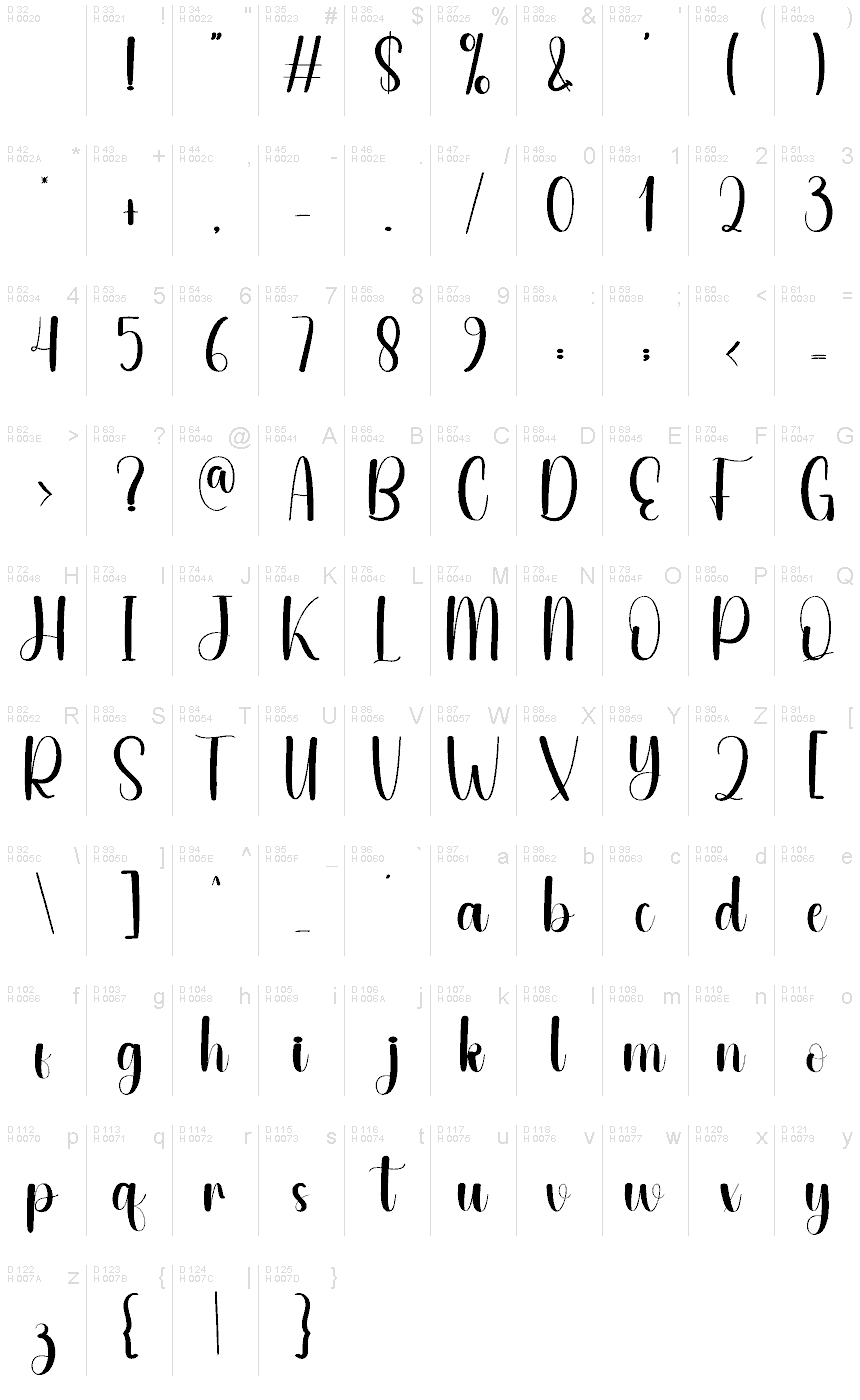
Panoramic
Panoramic font is the latest and greatest creation of Andi Moz. This free handwritten font is elegant, ornate, flowing, decorative, modern, and expressive all at once. These words accurately describe what Panoramic can do for any project in which it’s used whether it’s a digital design or a physical copy.
There are endless use cases for this font with some of them being products packaging and labeling; mobile applications; websites; headlines; or logos. It will also suit posters design; titles for magazines and newspapers covers and articles content; videos contents like intros/outros/ending credits etc.; emails/handwritten letters/invitations/messages/envelopes addresses etc..